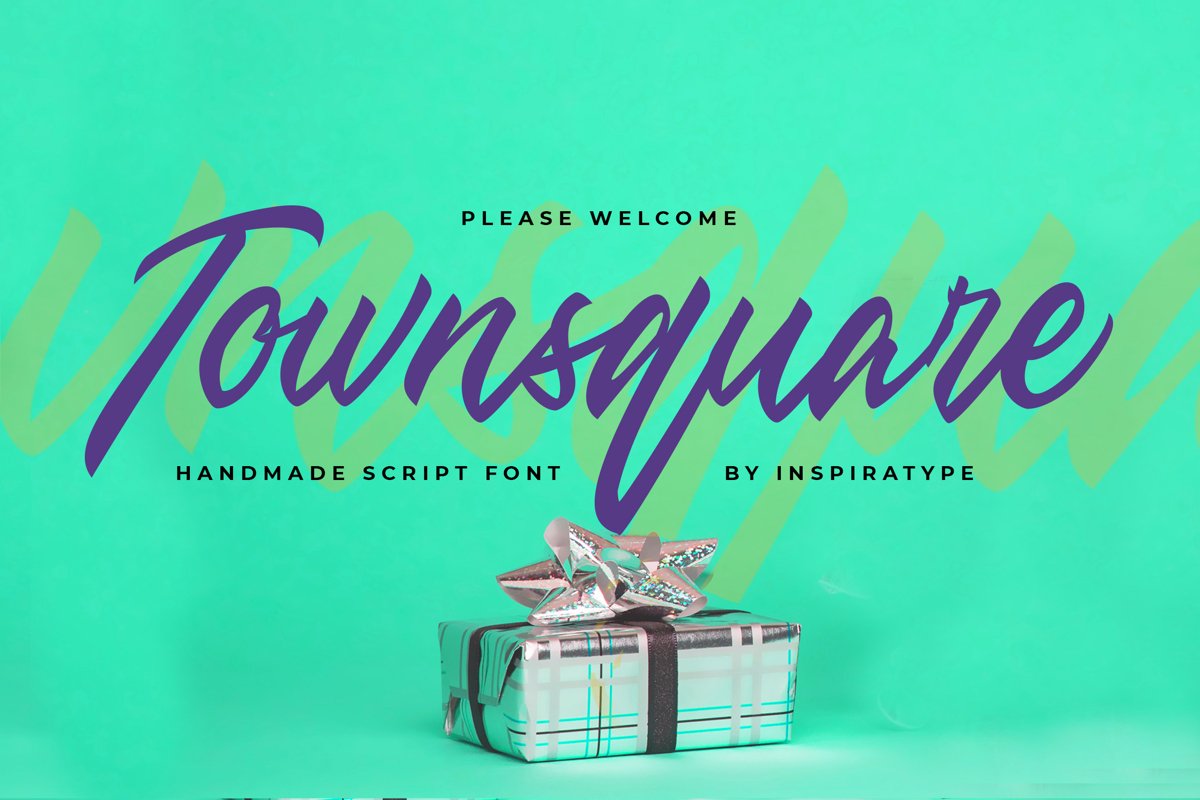
Townsquare
**DETAILS**
"Townsquare" is a font display that is made by hand, inspired by classic posters.
comes with uppercase, lowercase, numerals, punctuations and so many variations on each character include OpenType alternates, common ligatures and also additional swash to let you customize your designs. Perfect to use for Logotype, Letterhead, Poster, Apparel Design, Label and etc.
**OPENTYPE FEATURES**
* Swash
* Standard Ligatures
* Contextual Alternates
* Stylistic Alternates
* All Alternates